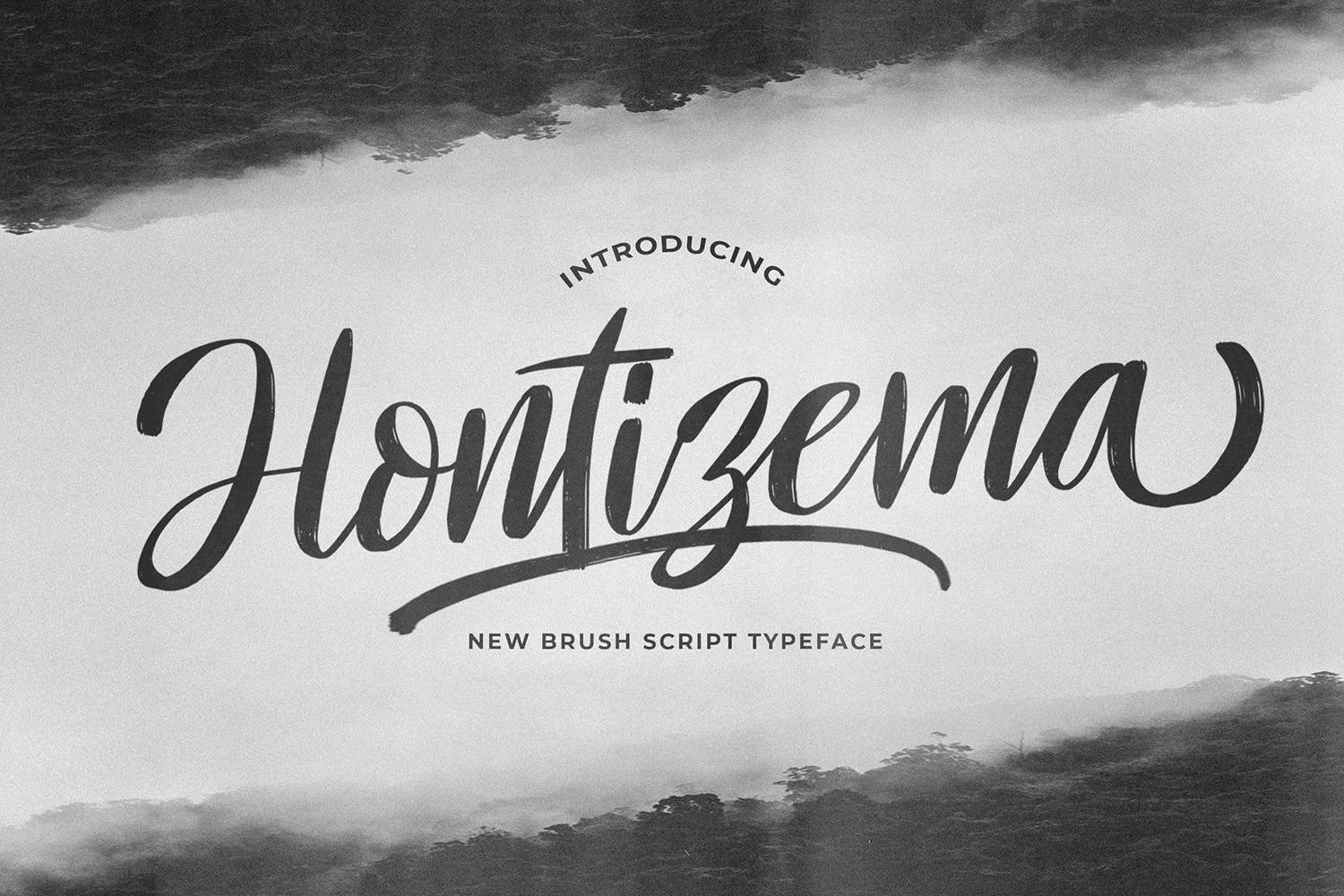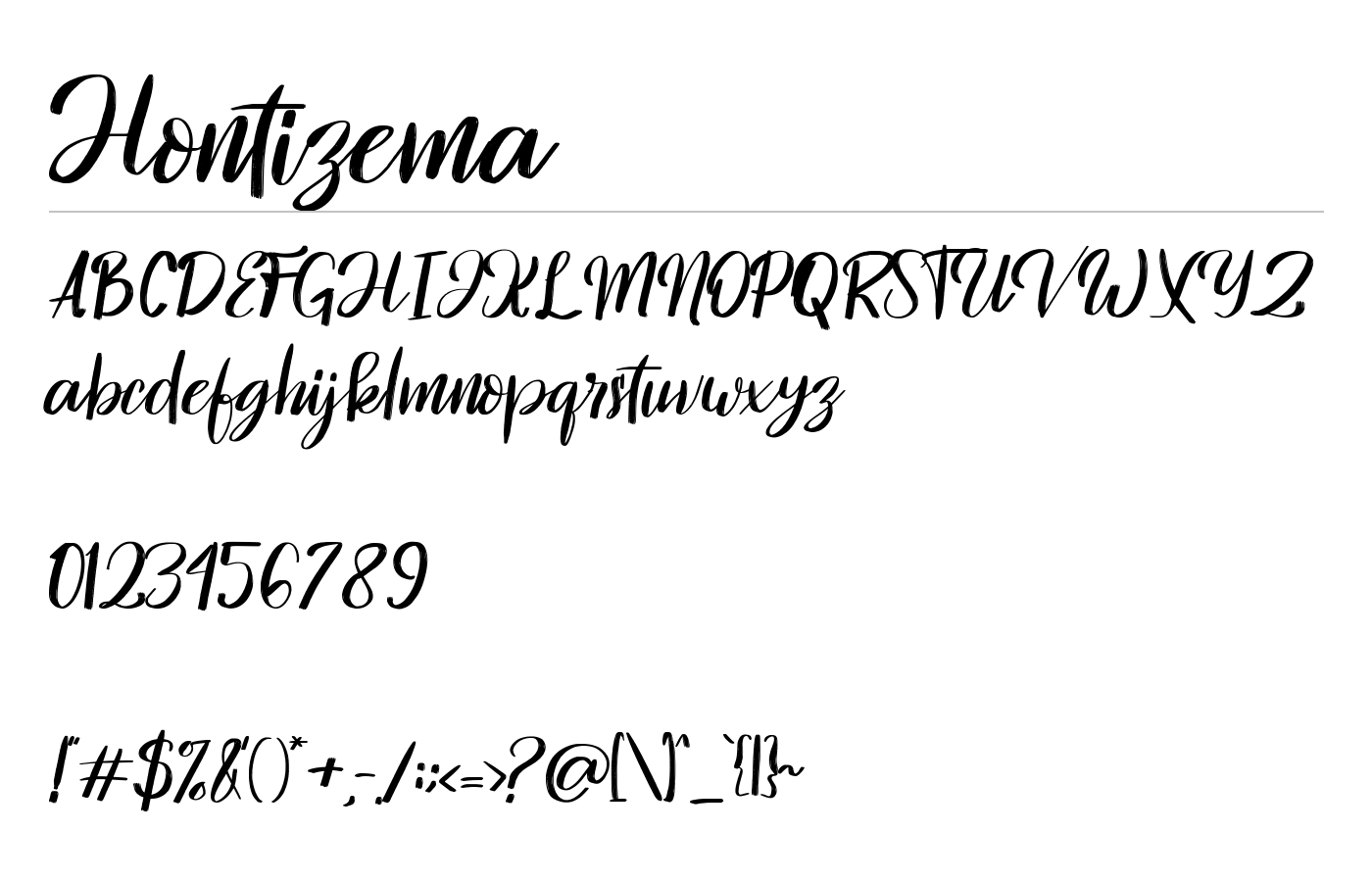
Hontizema is a lively script font with a bold, brushstroke style that combines elegance with a casual, hand-painted feel. Its tall, flowing letterforms and playful curves make it perfect for creative branding, invitations, and expressive headlines where a personal, artistic touch is desired. This font works well in designs aiming for a modern yet friendly and dynamic atmosphere.
Hontizema Font
About Hontizema Font
| Font family | Hontizema Font |
| Designer | Stringlabs. 2020 |